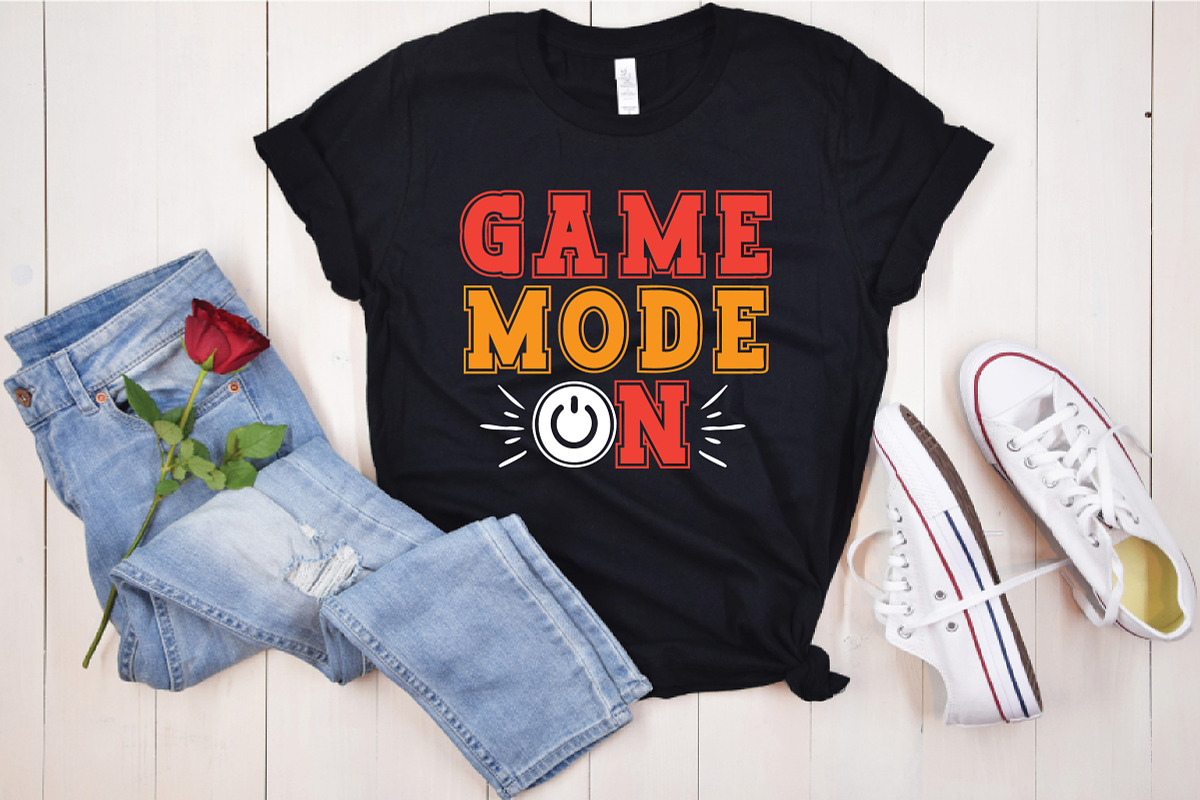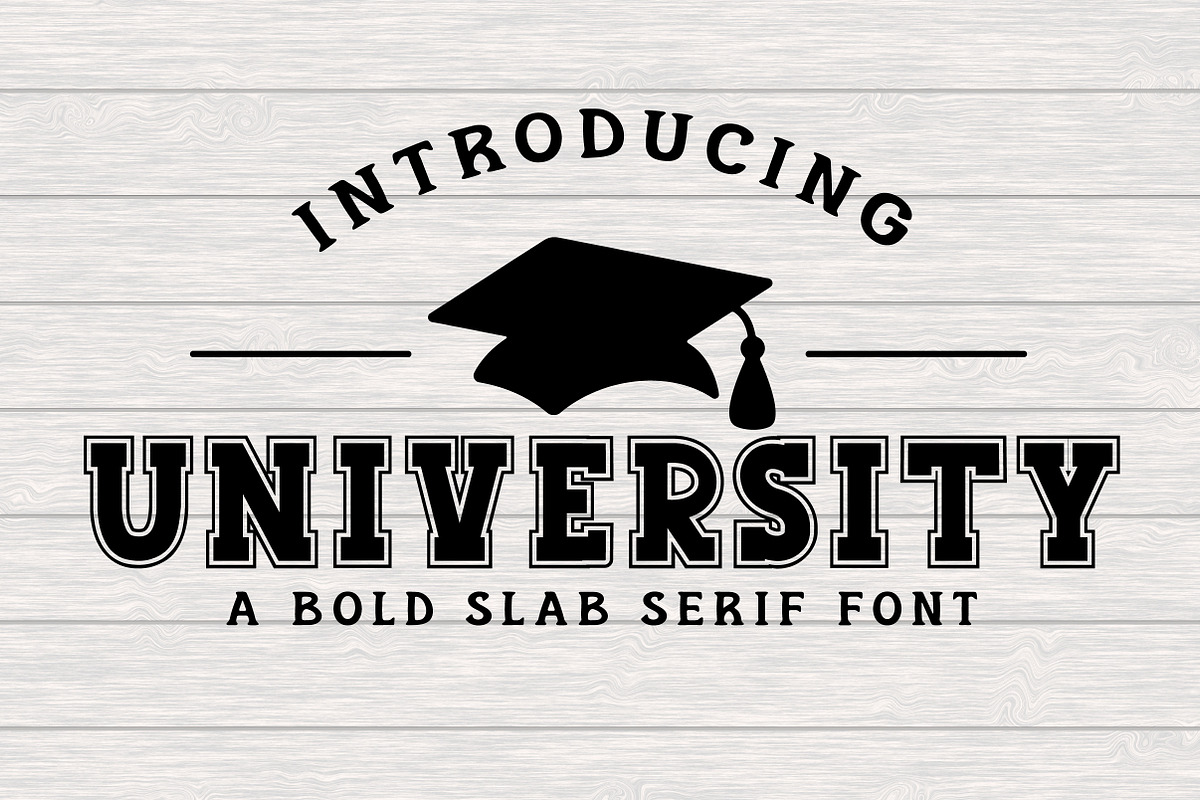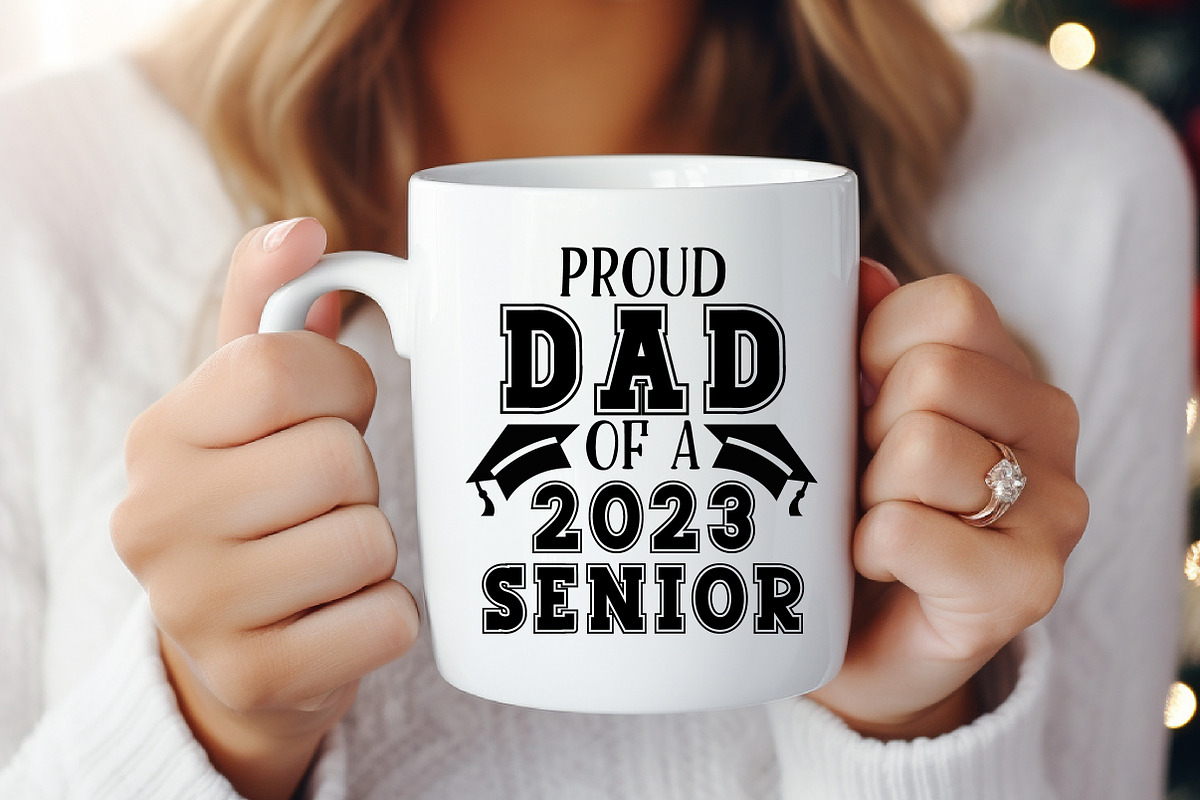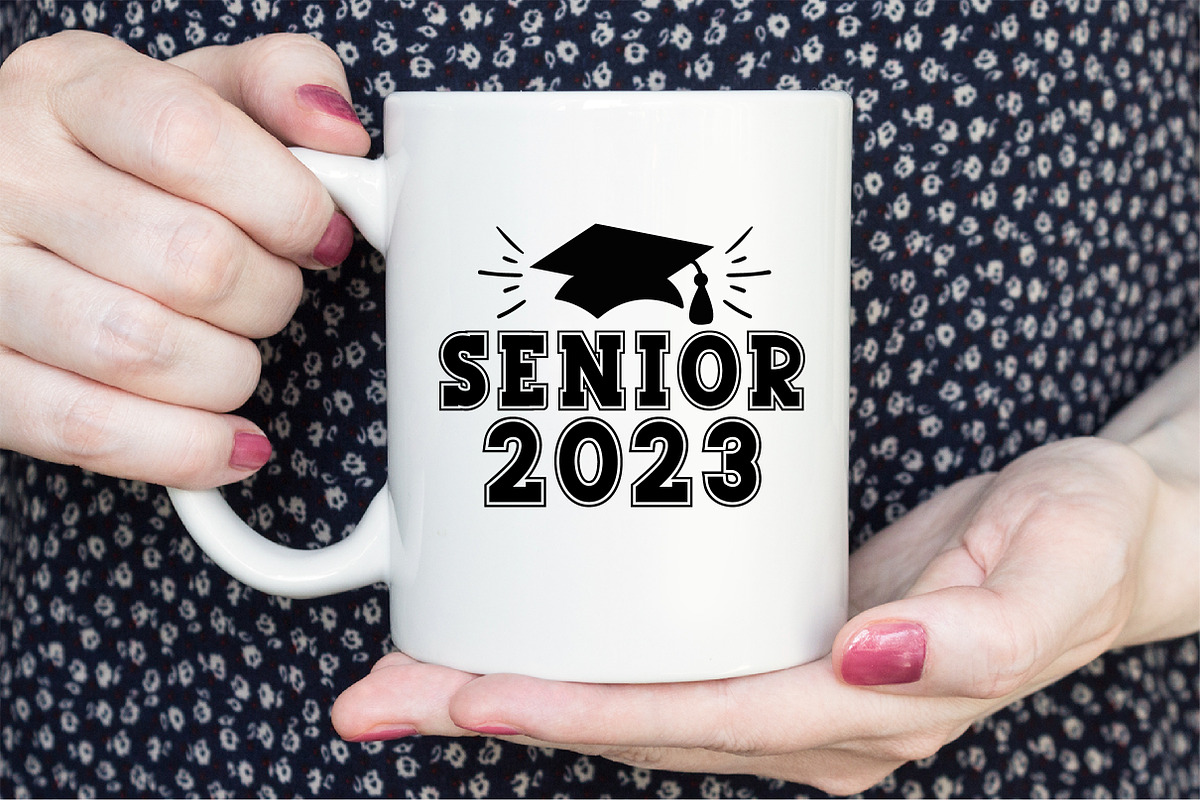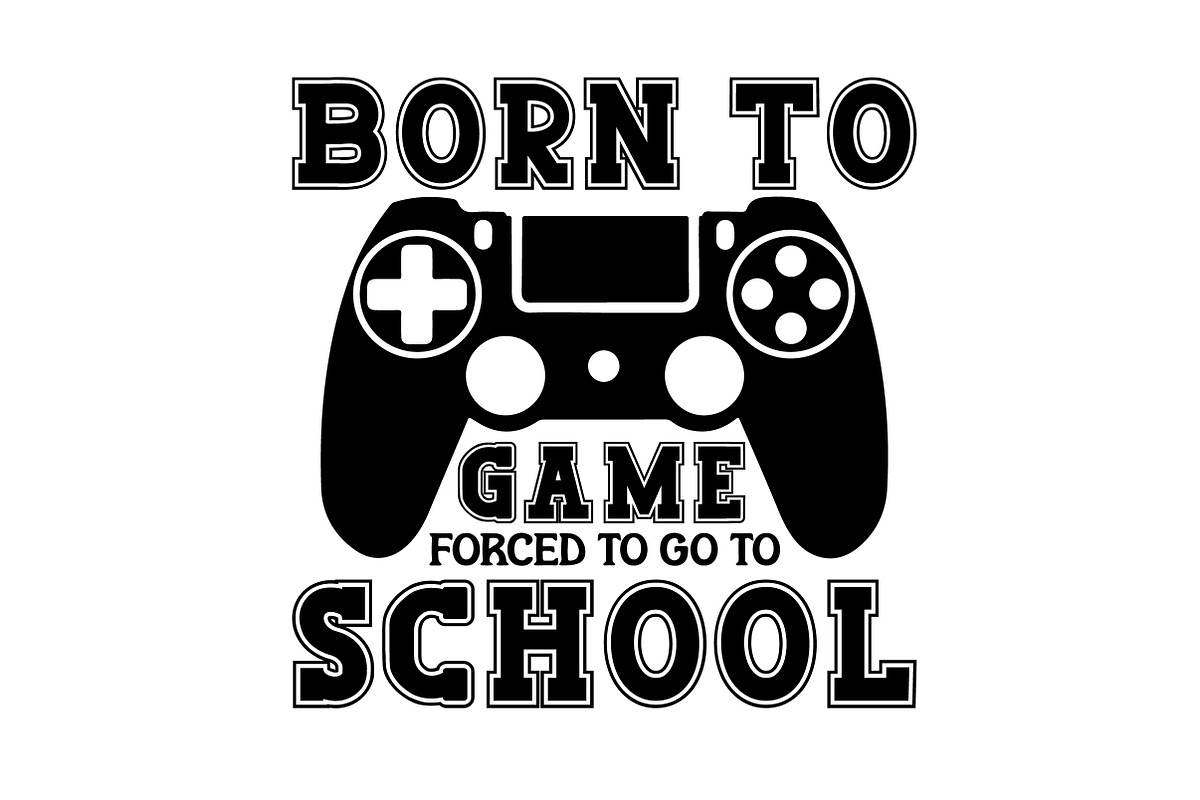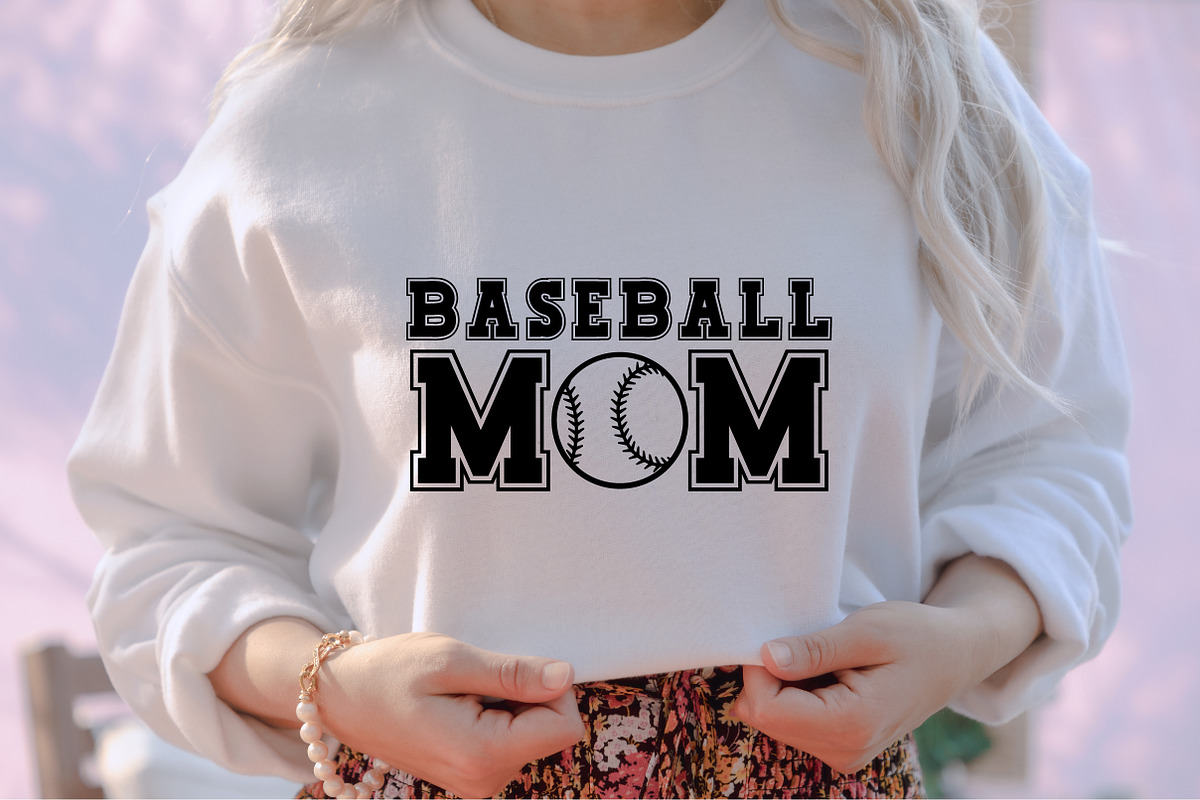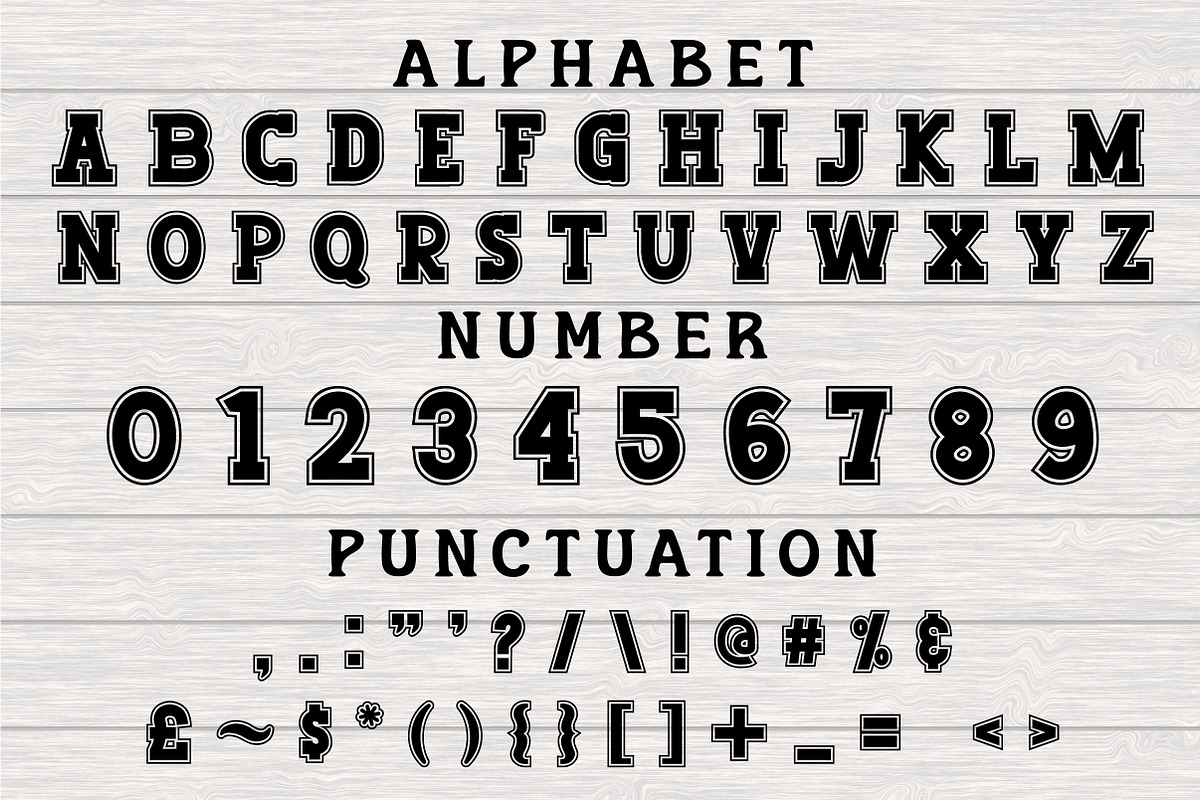
University
University is a bold Slab Serif Font. It is made of capital letters only.It looks powerful and is created to add a vibrant touch to your sport-inspired designs.Use it to add that special touch to any design idea! Add it confidently to your projects, and you will love the results. This font is the best for your hard work. You can use it for mugs,shirts, Christmas invitations, stickers,svg designs, baby shirts, covers,social media posts,Jersey, product packaging headings, etc.